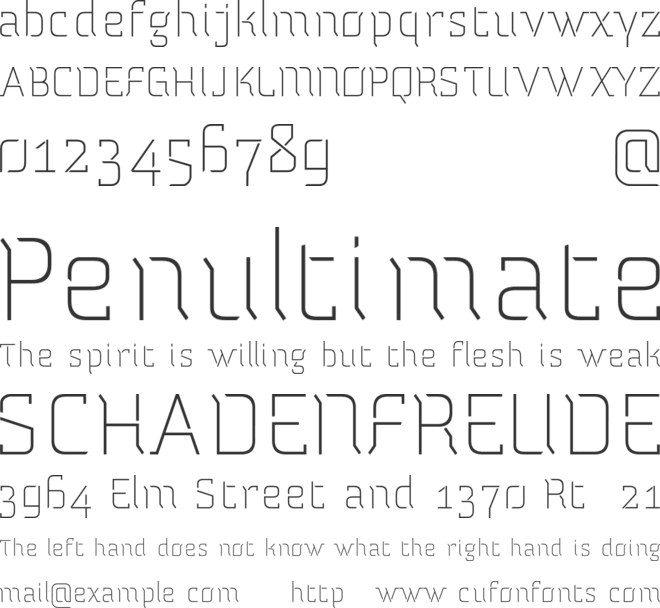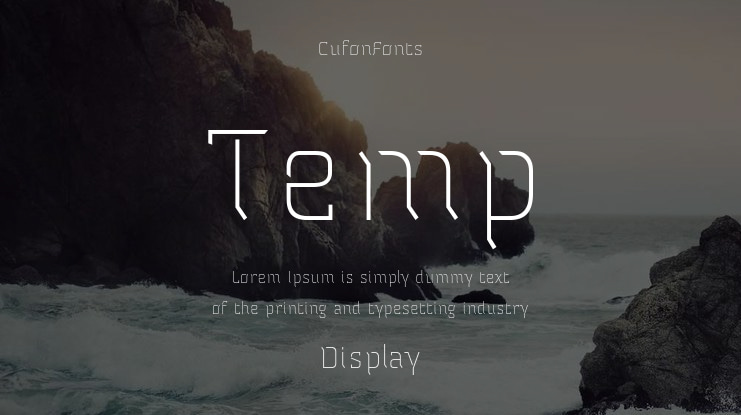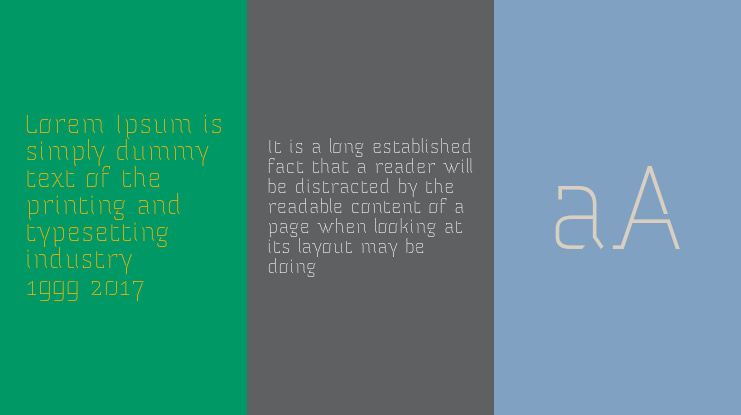
Temp Font Family
Temp Typeface is a futurist display font inspired by eletronic club flyers. I will include a functional demo of the font initially but I intend to finish the character map and make other weights available. Leave a comment if you like the project and want to see it updated more quickly.